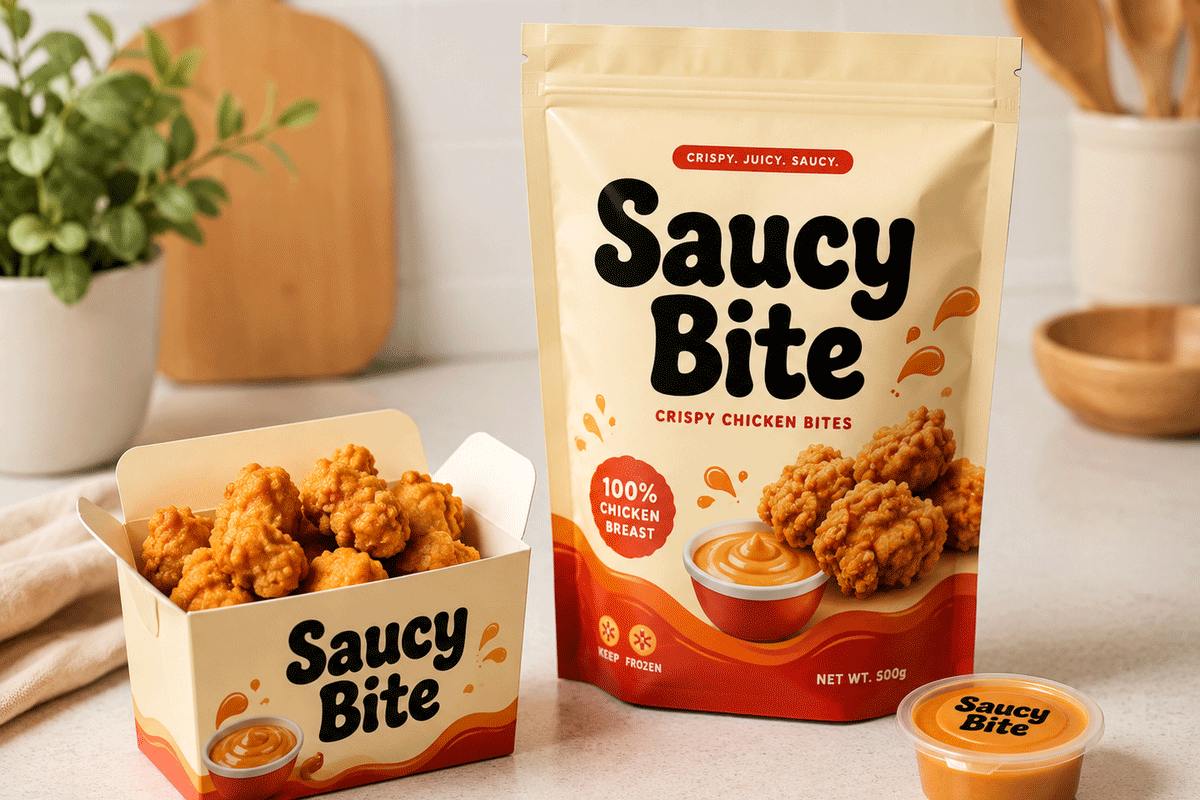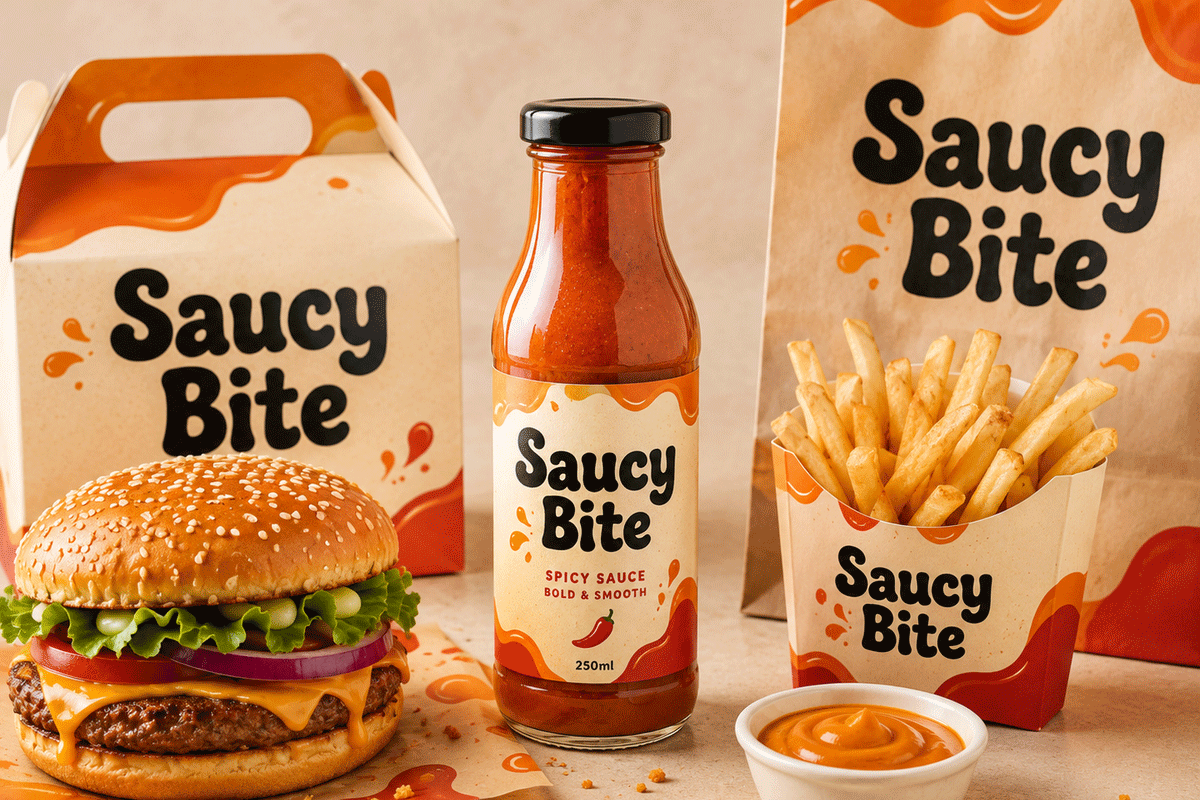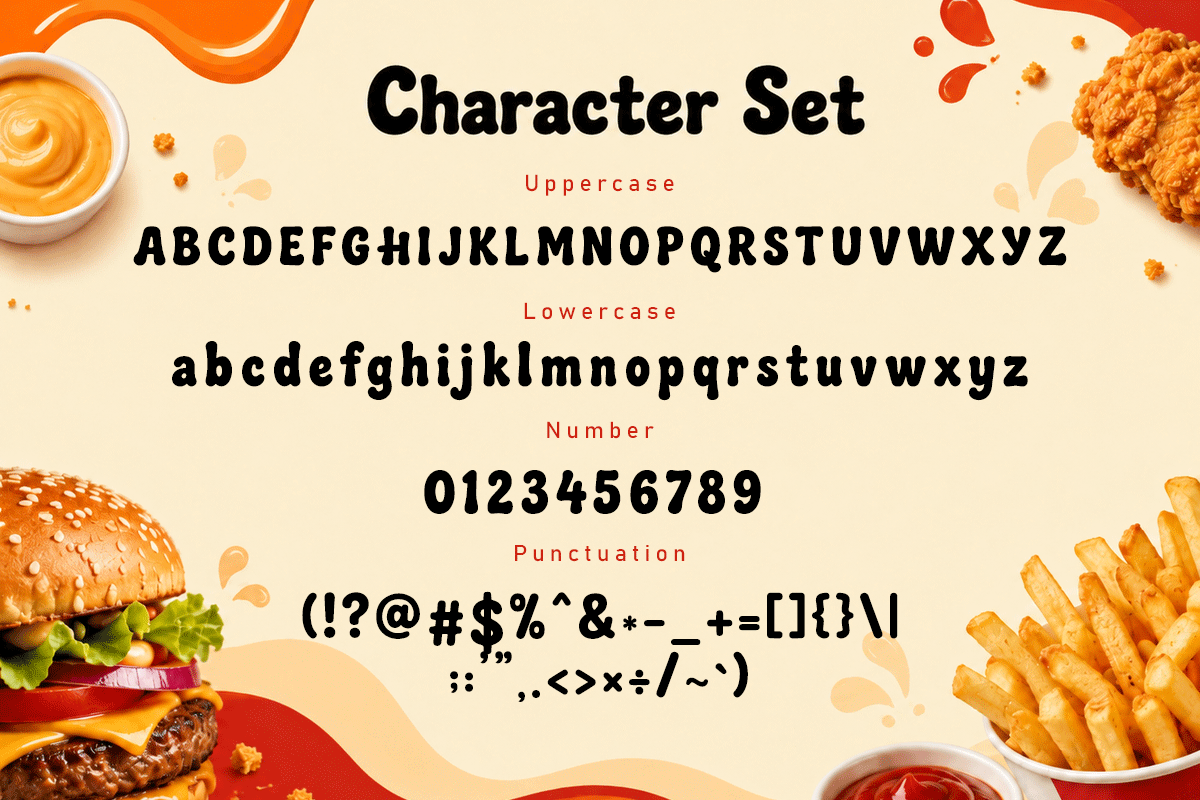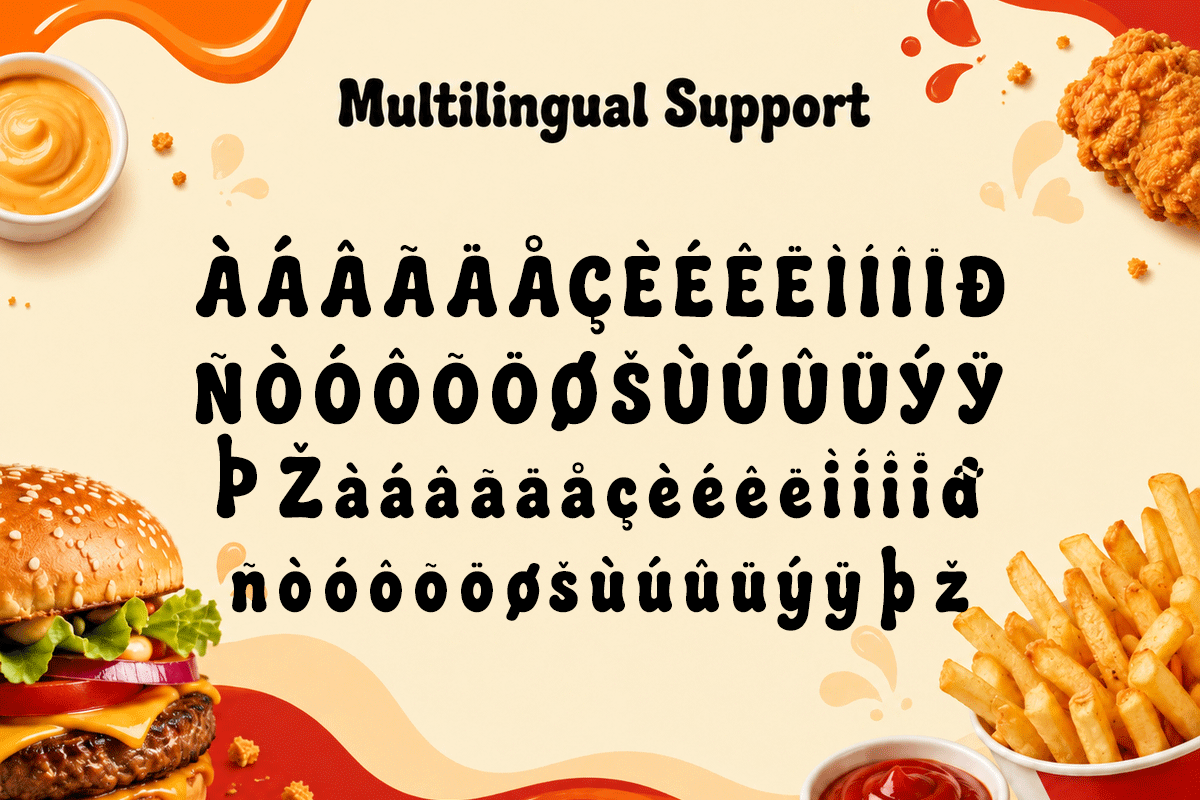
Saucy Bite A Modern Playful Display Font
Saucy Bite A Modern Playful Display Font is a fun and appetizing display font with bold rounded letterforms, soft curves, and a friendly handcrafted feel. Its chunky style gives every word a strong visual presence while keeping the overall look playful, casual, and easy to enjoy.
Inspired by burgers, fries, fried chicken, sauces, snacks, cafés, and fast-food branding, Saucy Bite A Modern Playful Display Font is perfect for restaurant logos, food packaging, menu boards, café branding, food trucks, posters, product labels, social media graphics, stickers, T-shirts, advertising, and promotional designs.
Its thick and expressive shapes work especially well for headlines, logos, and short phrases where the typography needs to feel energetic and memorable. Pair it with bold illustrations, warm colors, or food photography to create an irresistible visual identity.
Saucy Bite A Modern Playful Display Font is an excellent choice for designers looking for a typeface that feels tasty, cheerful, bold, friendly, and full of personality.